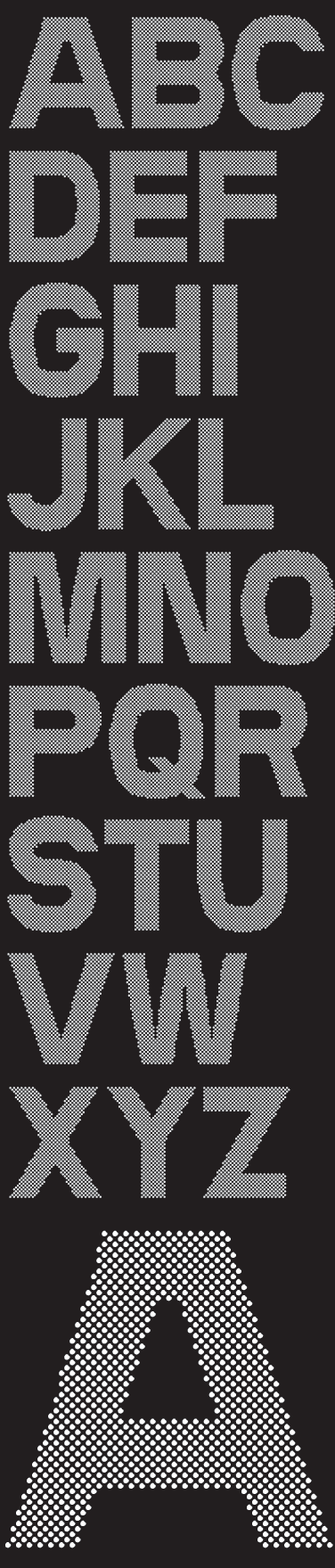
achieve moiree effects easily
Bloody hell.
One BIG ASS font.
I'd need to buy a larger monitor to fit this in! Brilliant.
Look forward to the lower case.
I once started on a similar idea, but didn't get very far. This is great.
Wow. Great work. I salute your dedication to see this one through to the end. Like SquarePeg, I too started a similar idea based on Cooper Black and ended up pulling the rip cord after only three letters.
Exellent! im also currently working on a similar idea! its a bit of a slog tho
Exellent!